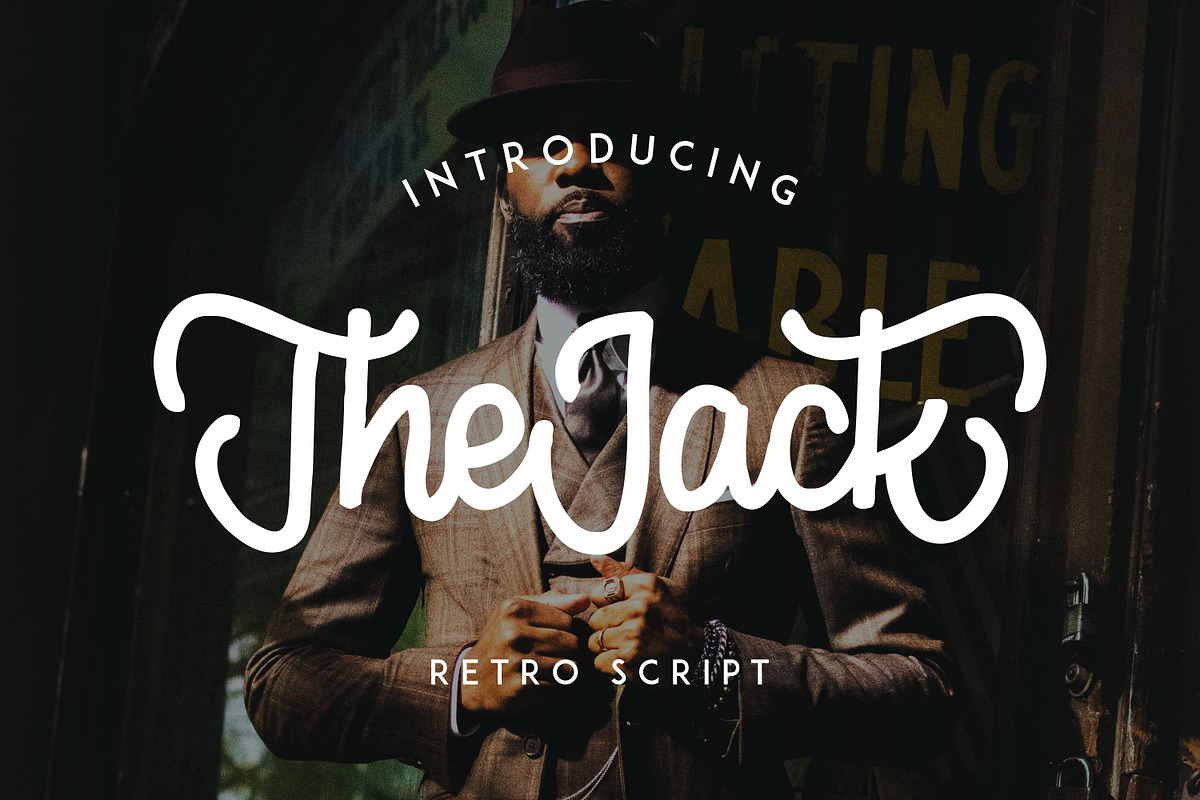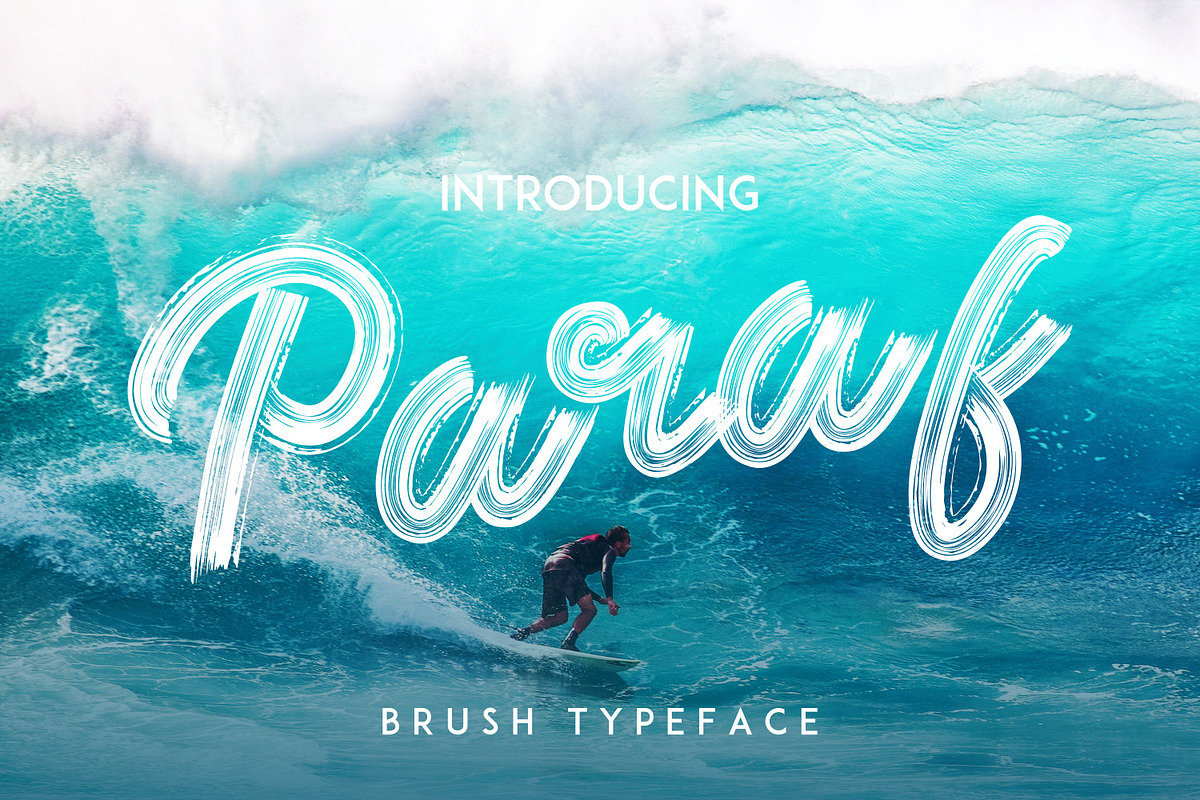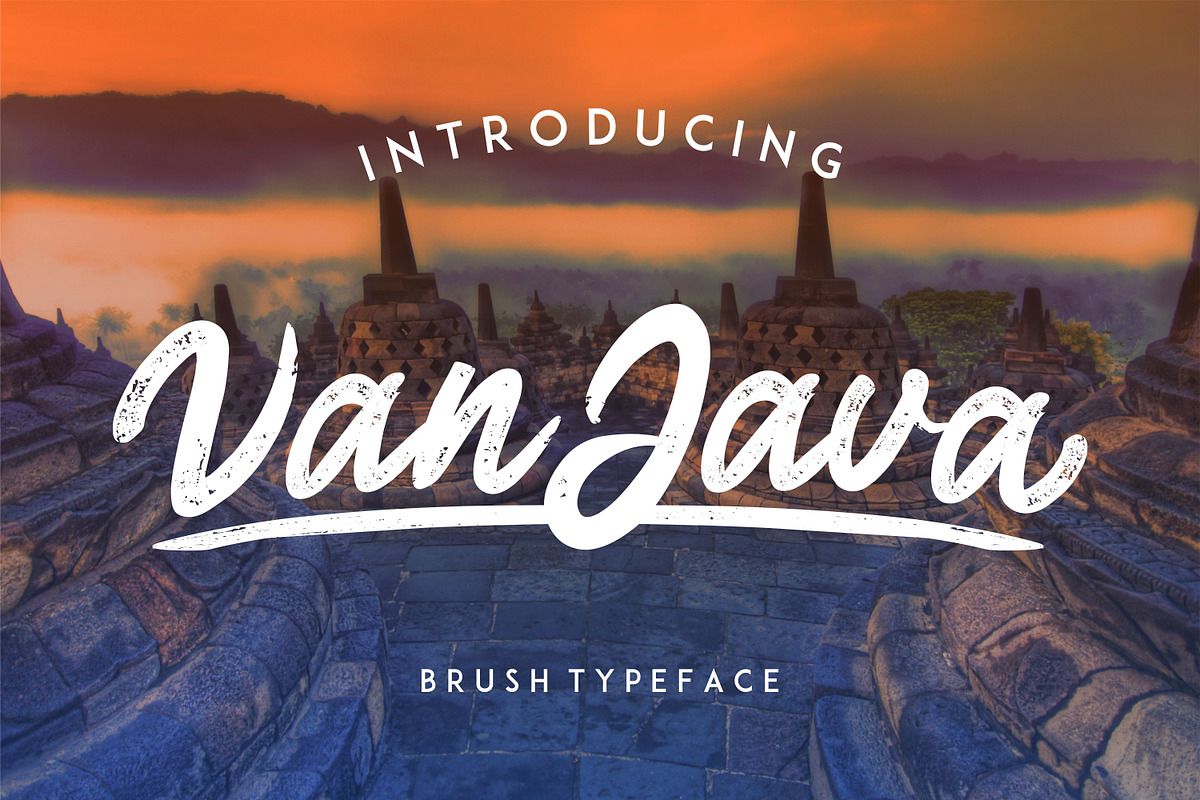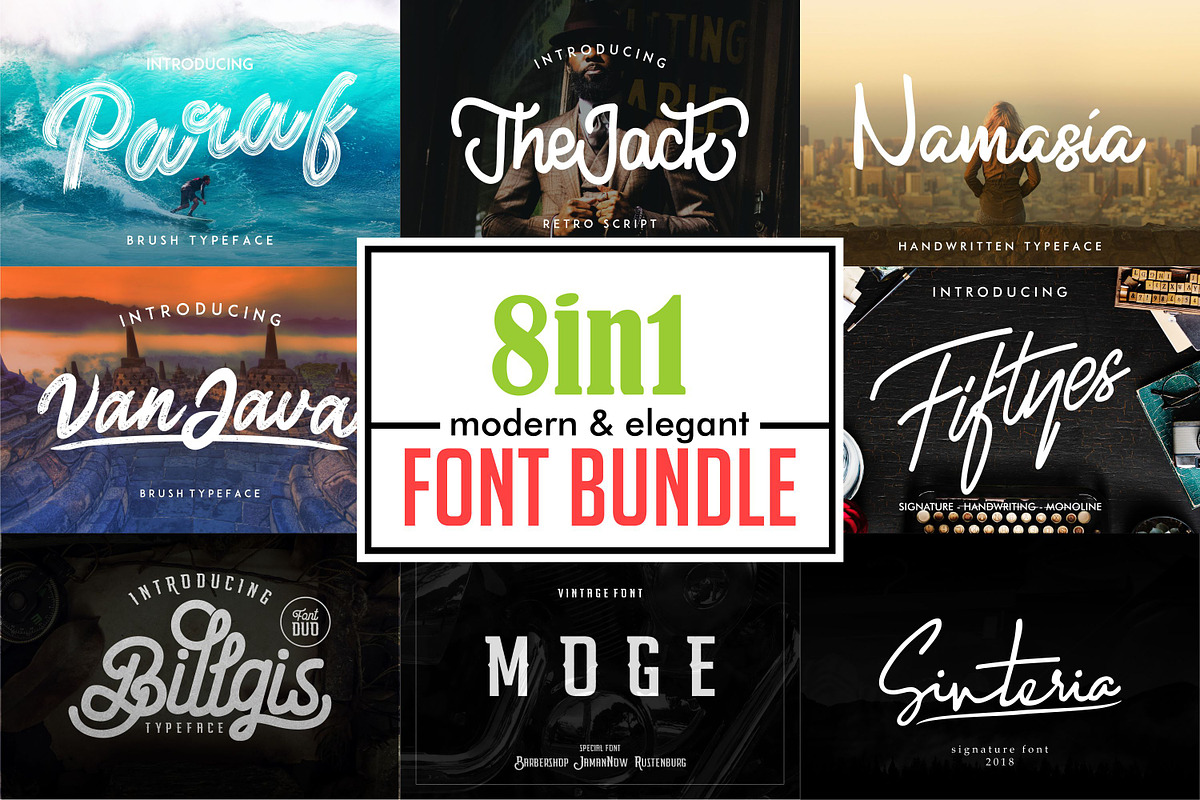
Elegant Font Bundle | Logo Font
This beautiful new year, we Banyumili Studios provide special prices and products for those of you who enjoy happy moments in this new year. In this bundle, we give 8 fonts that are very modern and eyecathing. Can be applied to various media. Like invitations, magazines, t-shirts, logos and more!
Why Elegant Font Bundle | Logo Font is worth a look
Elegant Font Bundle | Logo Font by Banyumili Studio fits naturally into Branding, posters, packaging, typography.